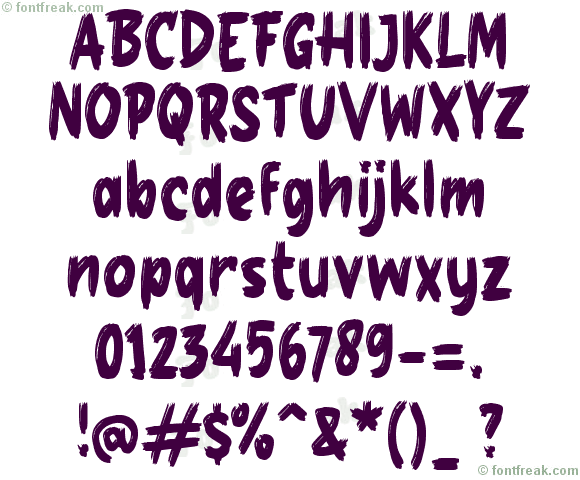
Gerbang
Gerbang — Character Map
About Gerbang
Introducing the Gerbang font by Wahyu Eka Prasetya, a captivating display typeface that seamlessly blends creativity and readability. This freeware font features a unique handwritten style that exudes personality and warmth, making it an excellent choice for various design projects. The strokes exhibit a medium weight with a dynamic contrast, creating an engaging visual presence that draws attention without overwhelming the viewer. The spacing is thoughtfully designed, ensuring clarity while maintaining a casual, inviting feel.
Gerbang is ideal for a range of applications. Its distinctive style makes it perfect for wedding invitations, where the personal touch of handwritten typography can enhance the sentiment of the occasion. Additionally, it shines in restaurant menus, where it can add a fun, informal vibe that complements a casual dining experience. For graphic designers working on promotional materials, Gerbang can be utilized in posters and flyers, effectively capturing the essence of an event or brand. Content creators will also find this font beneficial for social media graphics, as its playful aesthetic is sure to engage audiences.
The target audience for Gerbang includes graphic designers, small business owners, and content creators who seek an authentic and approachable typeface. As a versatile font, it caters to a variety of creative needs, allowing users to convey their messages with flair.
What sets the Gerbang font apart is its ability to evoke emotion while remaining functional. Its combination of charm and legibility makes it a standout choice for anyone looking to add a touch of personality to their projects. For those interested in this delightful typeface, a Gerbang font free download is readily available, inviting all to explore its creative potential.